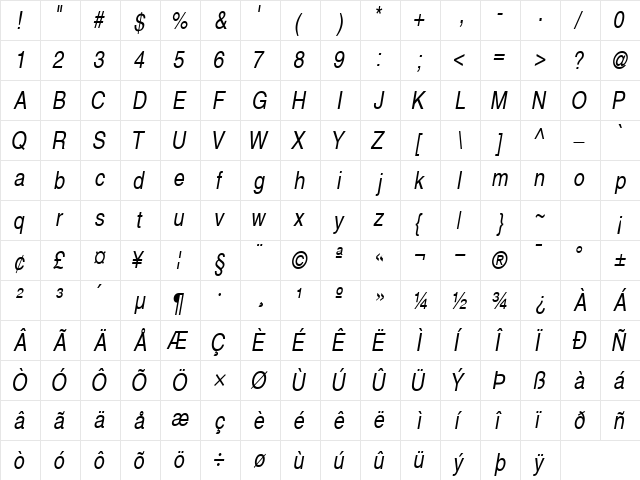
ContextExtraCondSSK Italic Font Preview
ContextExtraCondSSK Italic
ContextExtraCondSSK Italic Font Details
Design Context for ContextExtraCondSSK Typeface
ContextExtraCondSSK is a composed and adaptable typeface that performs quietly and consistently across a wide range of design contexts. Its italic angle brings a sense of urgency and motion to the letterforms. Its narrow stance lets it pack a punch even in space-constrained designs.
Pro Tip: Use ContextExtraCondSSK for emphasis, pull quotes, and subheadings where its slanted energy can add rhythm to the layout.